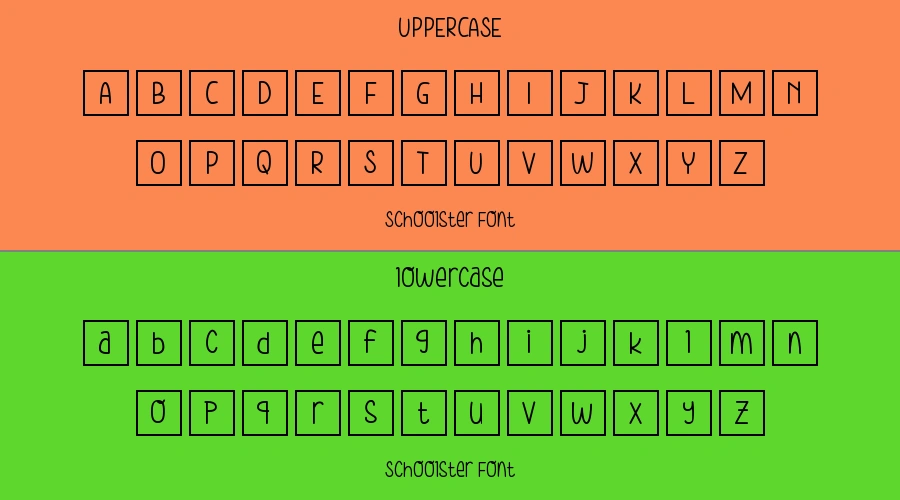
About Schoolster Font
Designed with precision, Schoolster Font merges systematic design with memorable presence in every character. This versatility makes it particularly effective for newspaper text, where memorability and practical utility directly impact communication quality. Each letterform demonstrates meticulous craftsmanship.
Technical excellence shines through elements like curved brackets and discretionary ligatures, enhancing typographic versatility. In logos settings, Schoolster Font proves its worth through superior microfilm readability. The thoughtful execution of counter shape and regulatory compliance ensures professional results.